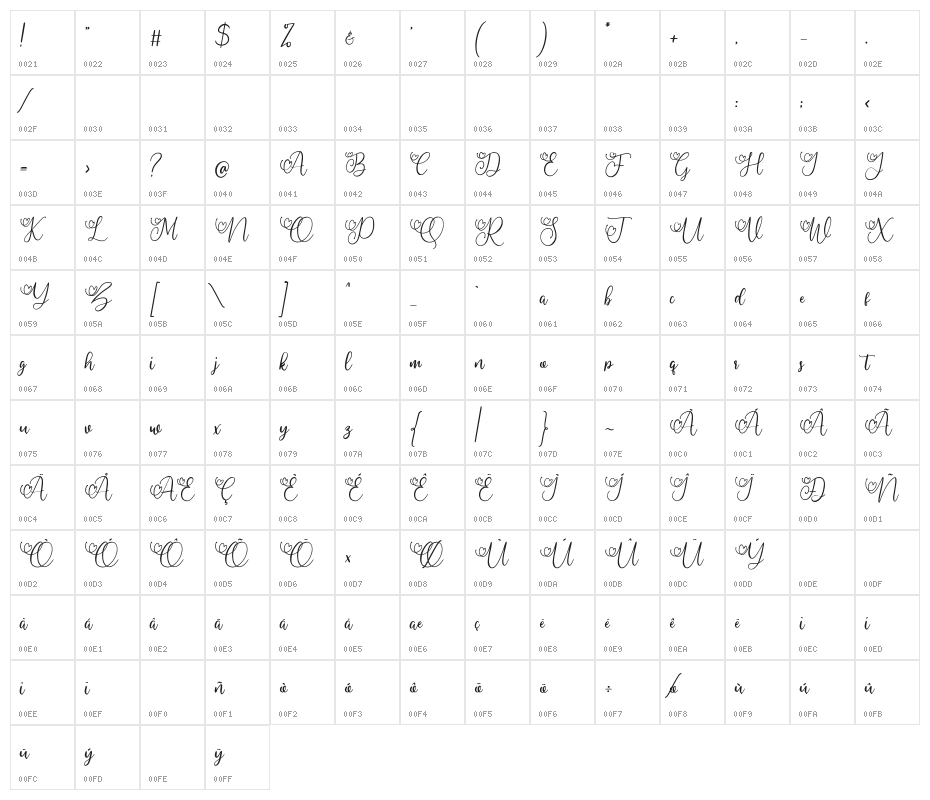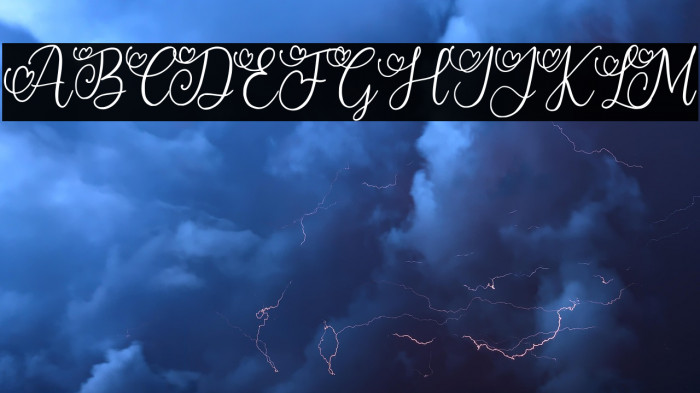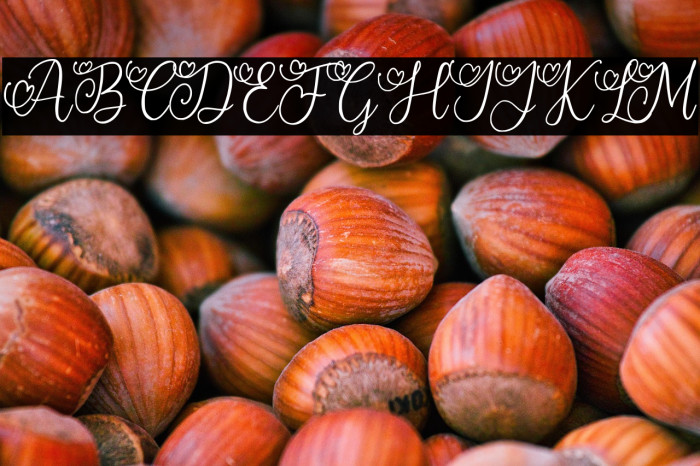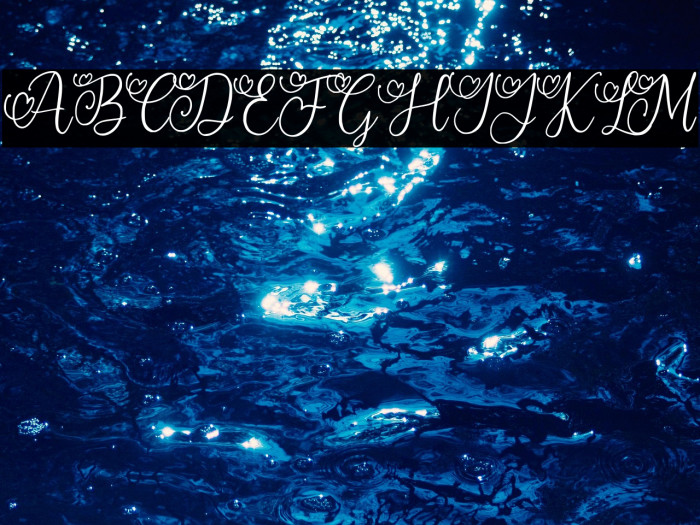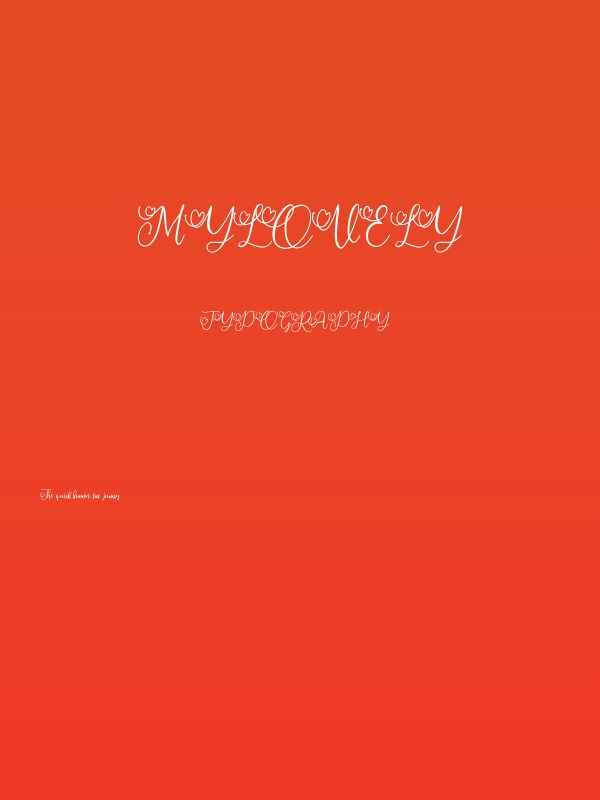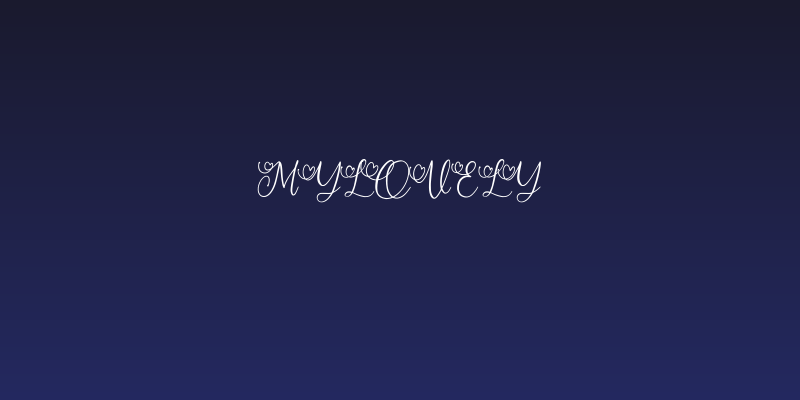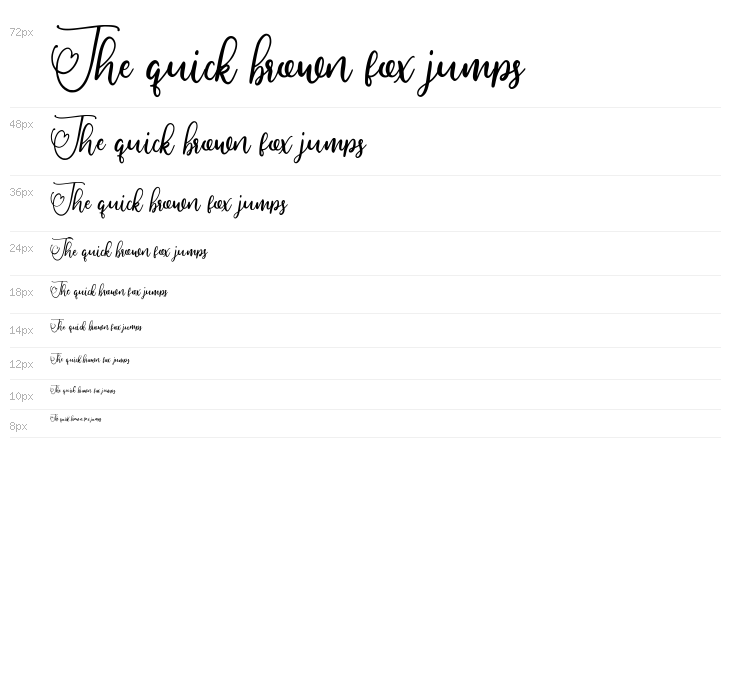
MyLovely Font
MyLovely Description
This font features a whimsical and romantic design, characterized by its flowing script style with heart motifs integrated into the uppercase letters. The lowercase letters maintain a smooth, cursive flow, adding a touch of elegance and charm. The font's playful nature is further emphasized by the inclusion of decorative elements in the special characters, making it ideal for projects that require a personal and affectionate touch. The overall appearance is both stylish and approachable, suitable for a variety of creative applications.
| Proposed Projects | Ideal for wedding invitations, greeting cards, love letters, and branding projects that require a personal and romantic touch. |